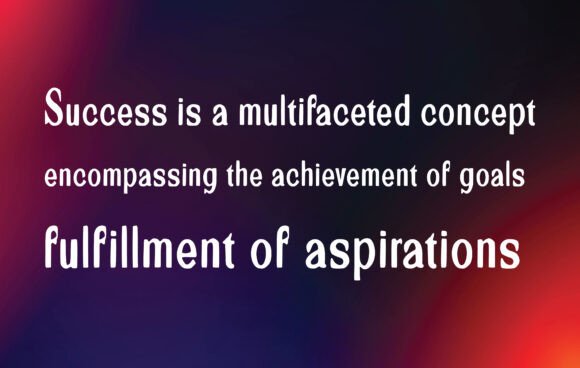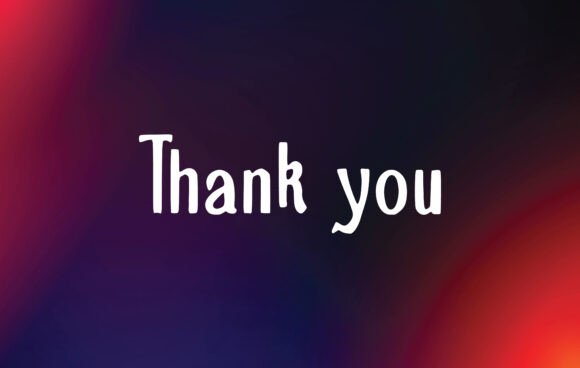
Introduction to Alan Font
Alan is a lovely and beautiful handwritten font.
Why Choose Alan Font?
Alan Font offers exceptional quality and versatility, making it a valuable addition to your design toolkit. Whether you’re creating for personal projects or commercial use, Alan Font delivers professional results.